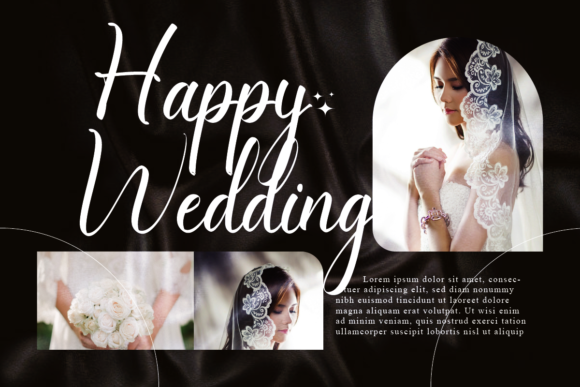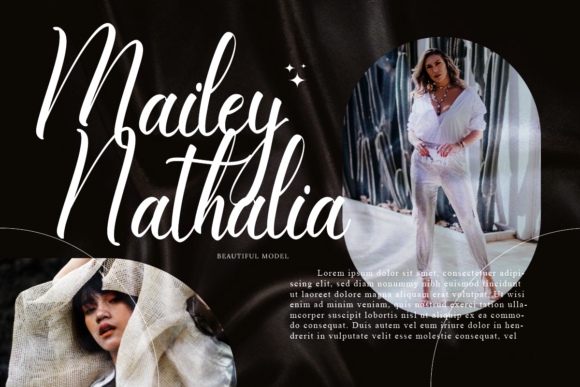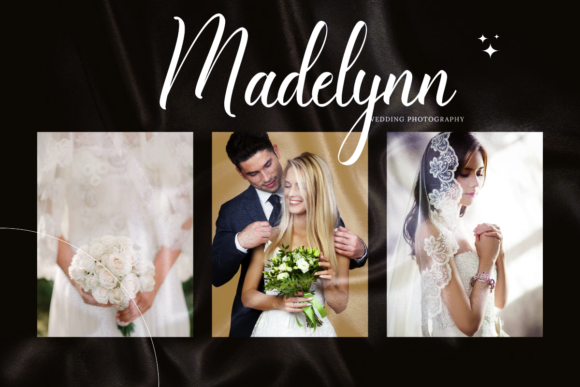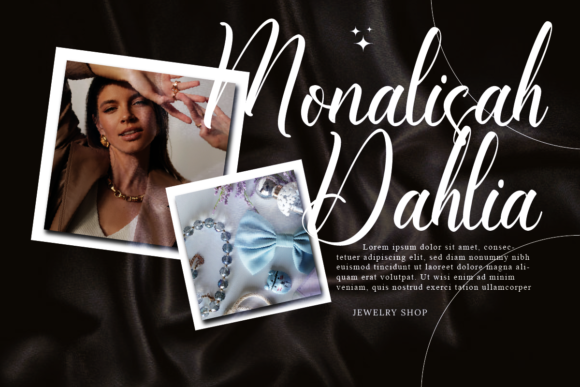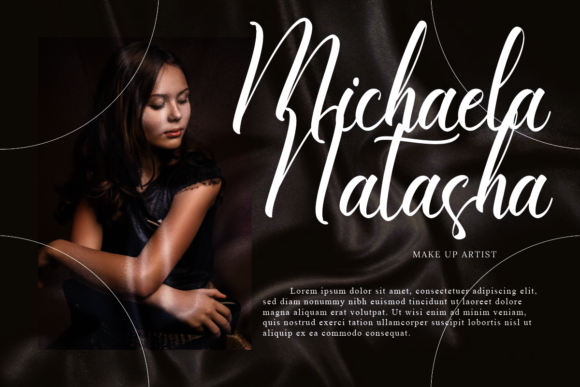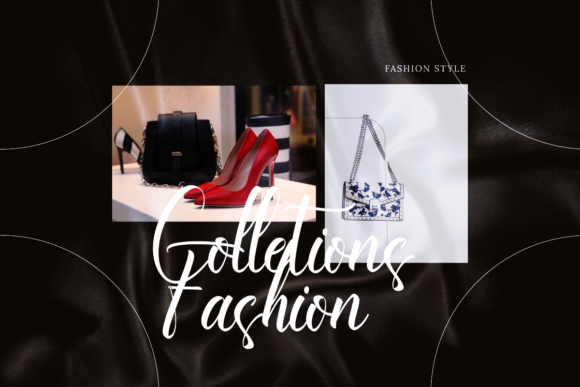
The Elusive Perfect Font: My Journey with Alessandra Sabrina
Ah, the quest for the perfect font. We’ve all been there – stuck in the midst of a design project, scrolling through font after font, searching for that one special something that brings our vision to life. I recall a particularly frustrating instance when a client requested a font that was both elegant and playful for their boutique brand. After hours of searching, I stumbled upon Alessandra Sabrina, a lovely and delicate script font that exuded elegance and class. It was love at first sight! 💕
An Honest Review of Alessandra Sabrina
So, what makes Alessandra Sabrina so special? Let’s dive into the good stuff and, of course, a few quirks I’ve discovered along the way.
- ✨ Elegant and refined strokes that add a touch of sophistication to any design
- ✅ Beautifully crafted to work seamlessly in a variety of sizes and resolutions
- 💫 Highly versatile, making it perfect for a range of projects from branding to wedding invitations
- 🎨 A lovely base font that can be easily paired with other fonts for a unique look
While Alessandra Sabrina is an exceptional font, there are a few things to keep in mind:
- ⚠️ May not be the best choice for very long blocks of text due to its script nature
- 🤔 Some users may find the font requires a bit of tweaking for optimal kerning
Exploring Alternatives: Similar Fonts to Alessandra Sabrina
While Alessandra Sabrina is undoubtedly charming, it’s always good to have options. Here are a few similar fonts you might consider:
- Carolyna Pro – Offers a similar elegant feel with a bit more flair
- Alex Brush – A beautiful script font with a whimsical touch
- Great Vibes – Provides a more casual, yet still refined, script look
- Lobster – A classic, elegant script font perfect for formal designs
The Story Behind Alessandra Sabrina
Alessandra Sabrina was crafted with love and attention to detail by a talented font designer. The story goes that the designer was inspired by the beauty of Italian culture and sought to create a font that embodied both classic elegance and modern charm. Whether or not you believe in the romantic backstory, one thing is clear: Alessandra Sabrina is a font that brings a touch of sophistication to any project.
Q: Is Alessandra Sabrina suitable for body text?
A: While Alessandra Sabrina is stunning, it’s primarily designed for headlines and short text passages. For longer blocks of text, a more traditional serif or sans-serif font might be more readable.
Q: Does Alessandra Sabrina support OpenType features?
A: Yes, Alessandra Sabrina supports OpenType features, including stylistic alternates and glyphs, which can add variety and interest to your designs.